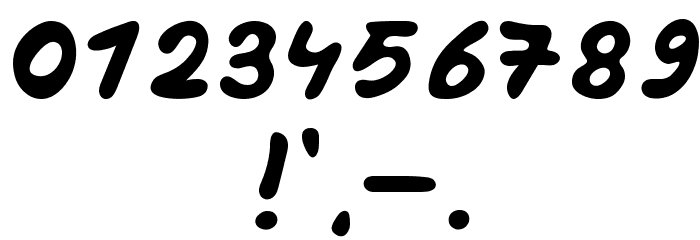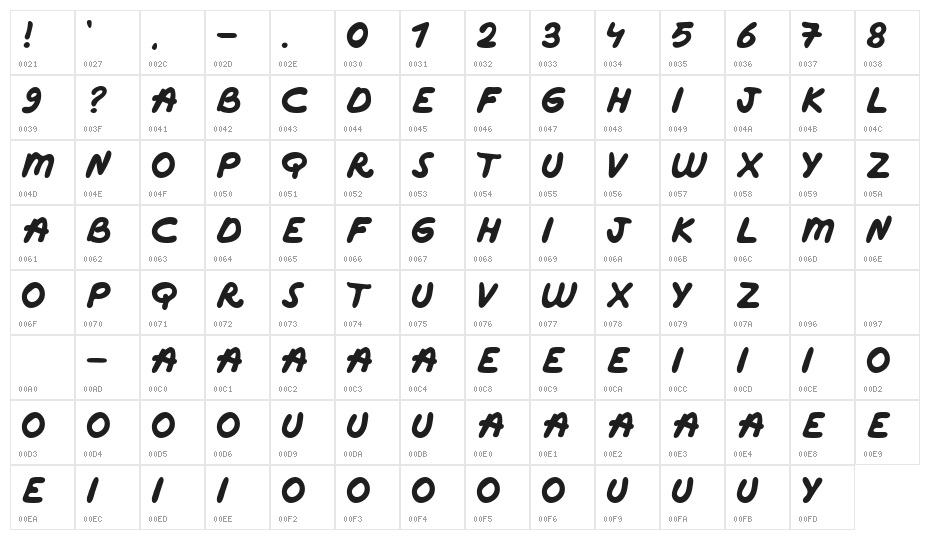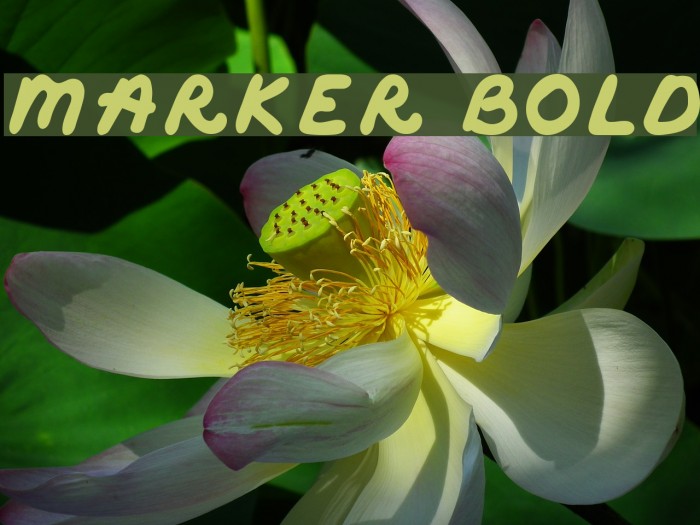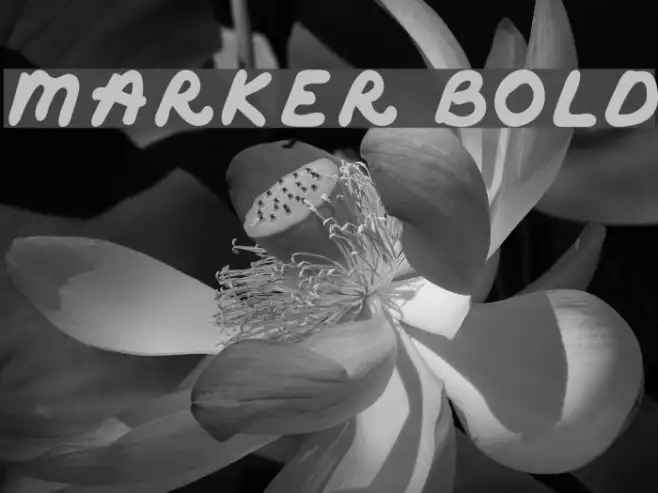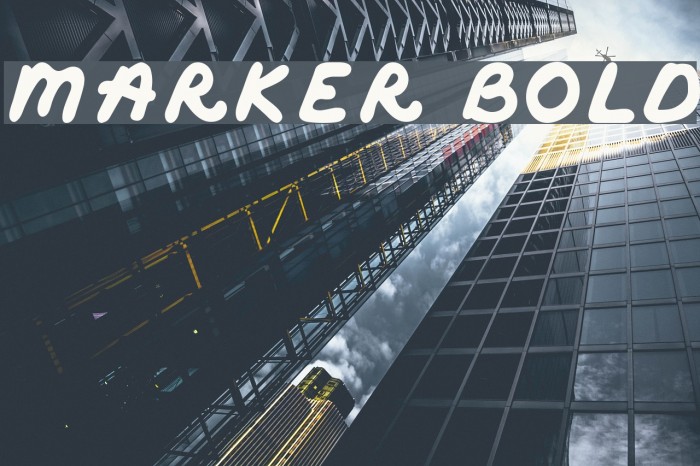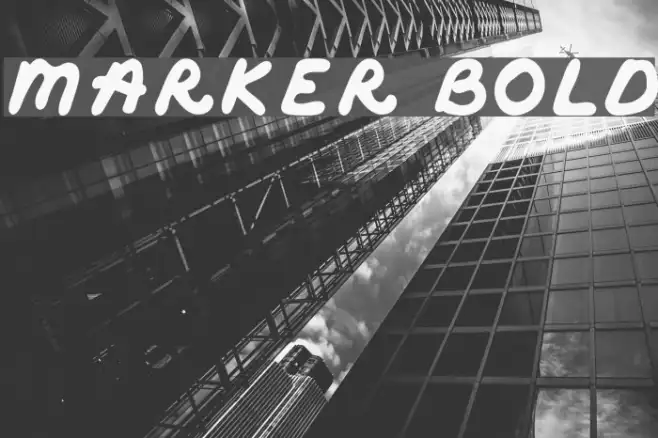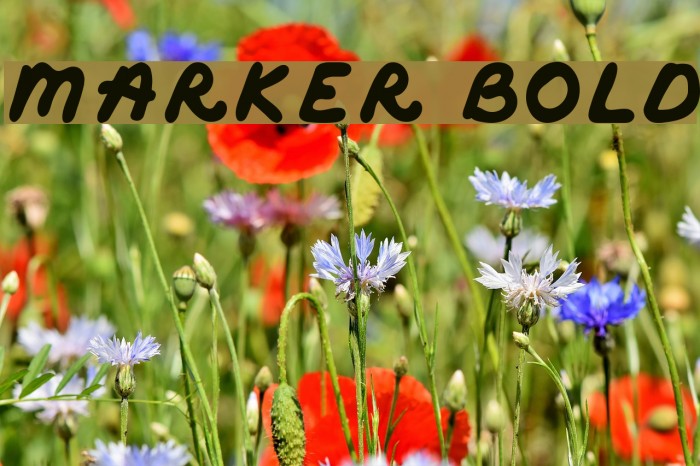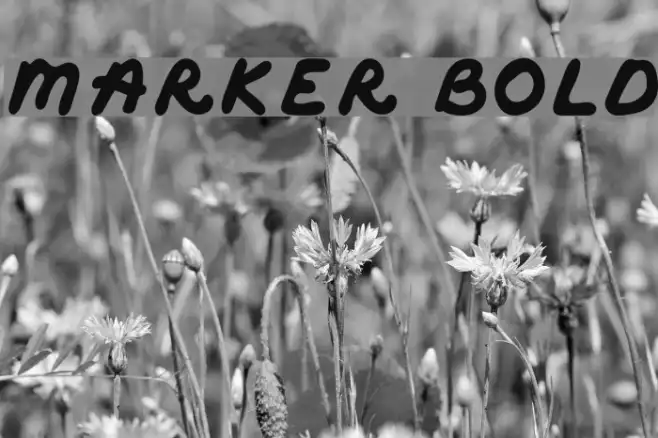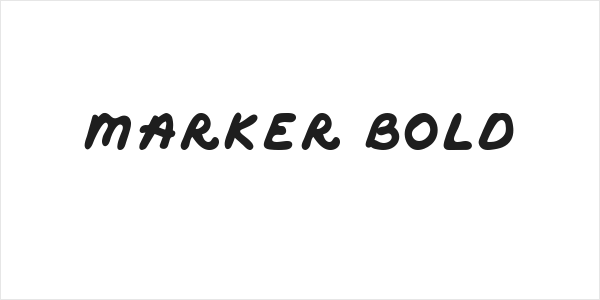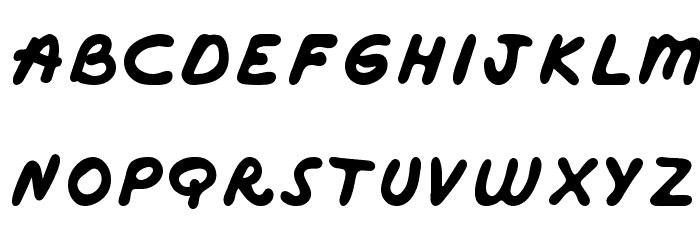
Marker Bold Font
Marker Bold Description
This font features a bold and rounded style, reminiscent of handwritten marker strokes. The characters are smooth and fluid, with a playful and casual appearance. The uppercase and lowercase letters maintain a consistent thickness, contributing to a cohesive look. The numerals and special characters follow the same design principles, ensuring uniformity across all glyphs. This font's boldness makes it stand out, while its rounded edges give it a friendly and approachable feel. It's ideal for projects that require a personal touch or a sense of informality.
| Proposed Projects | Ideal for children's books, casual branding, greeting cards, and playful posters. |